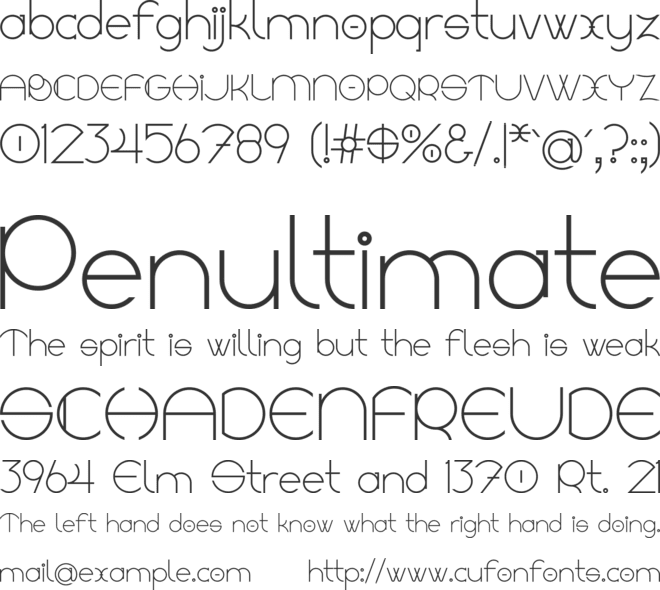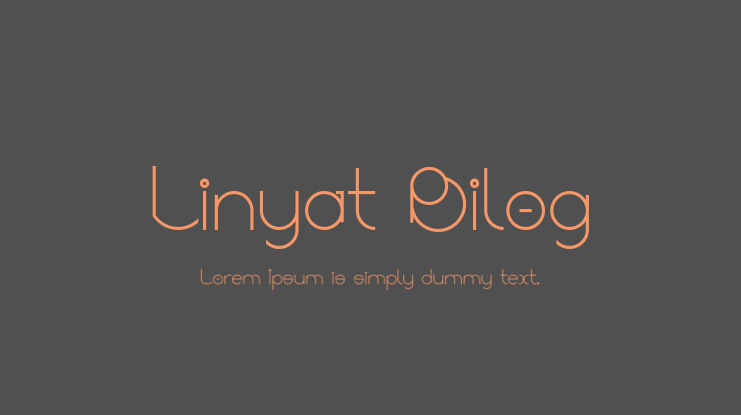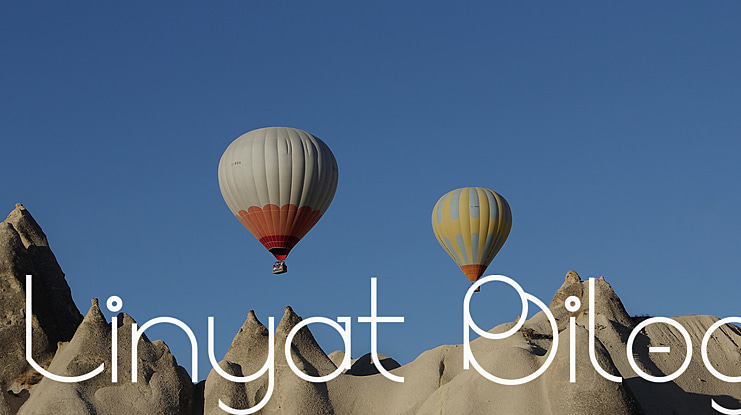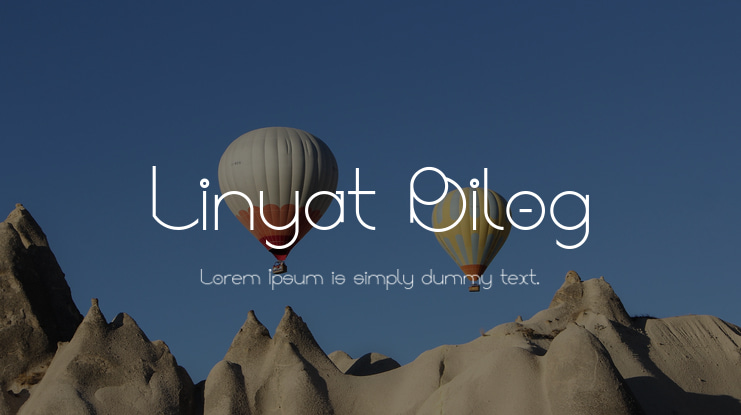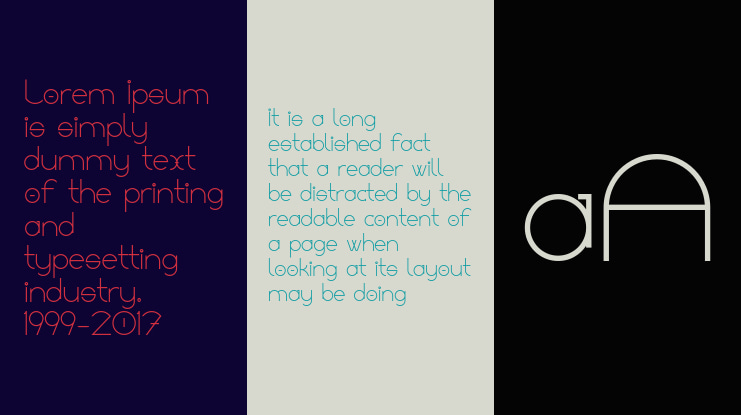
Linyat Bilog Font Family
A font created from lines and circles
©Toto, 2010. A line and circle font to commemorate the Triple 10 Day [October 10, 2010]